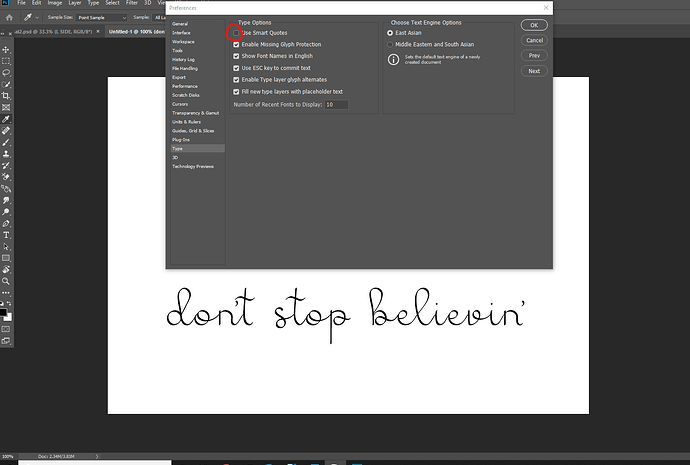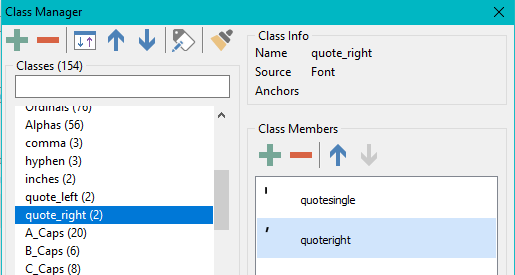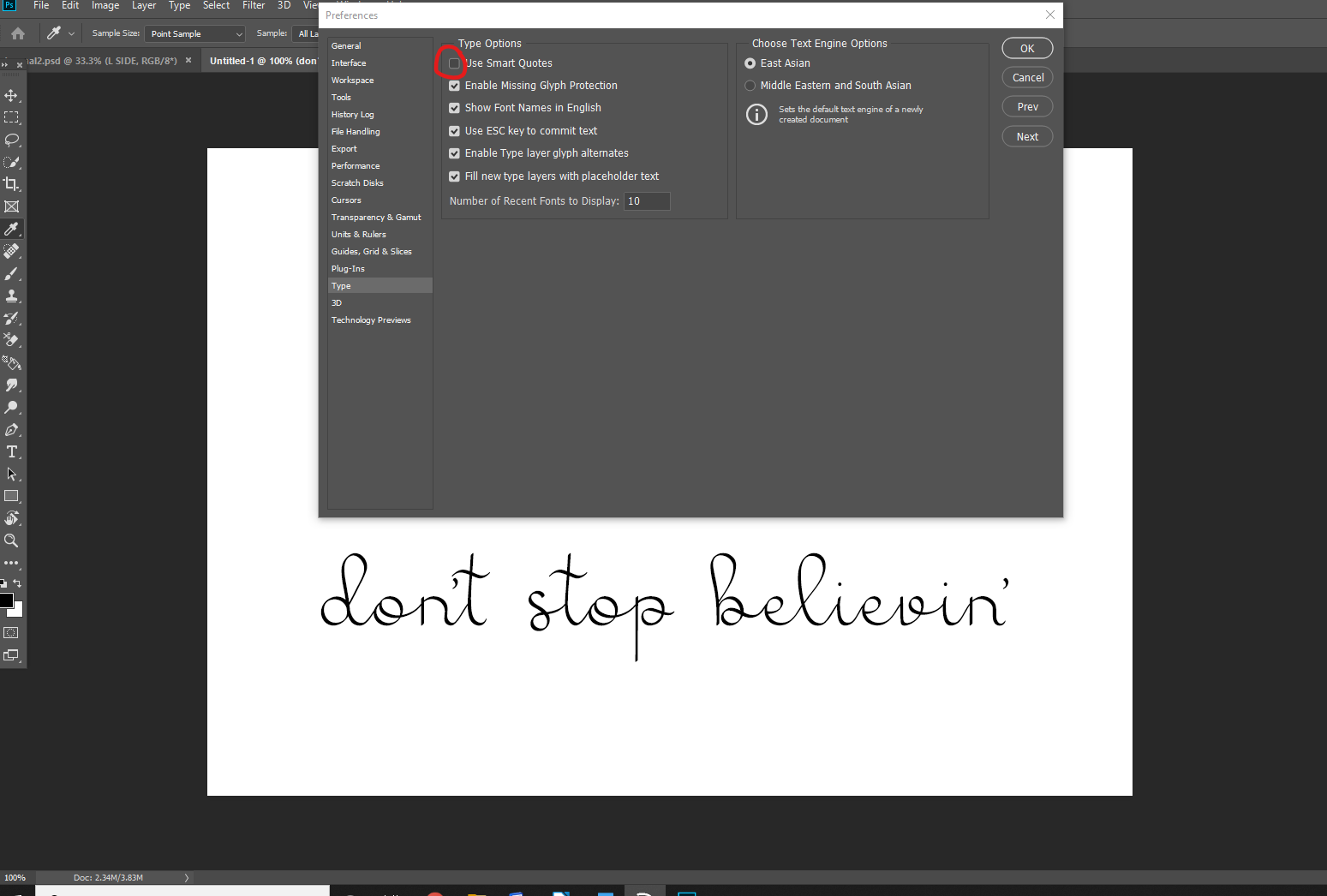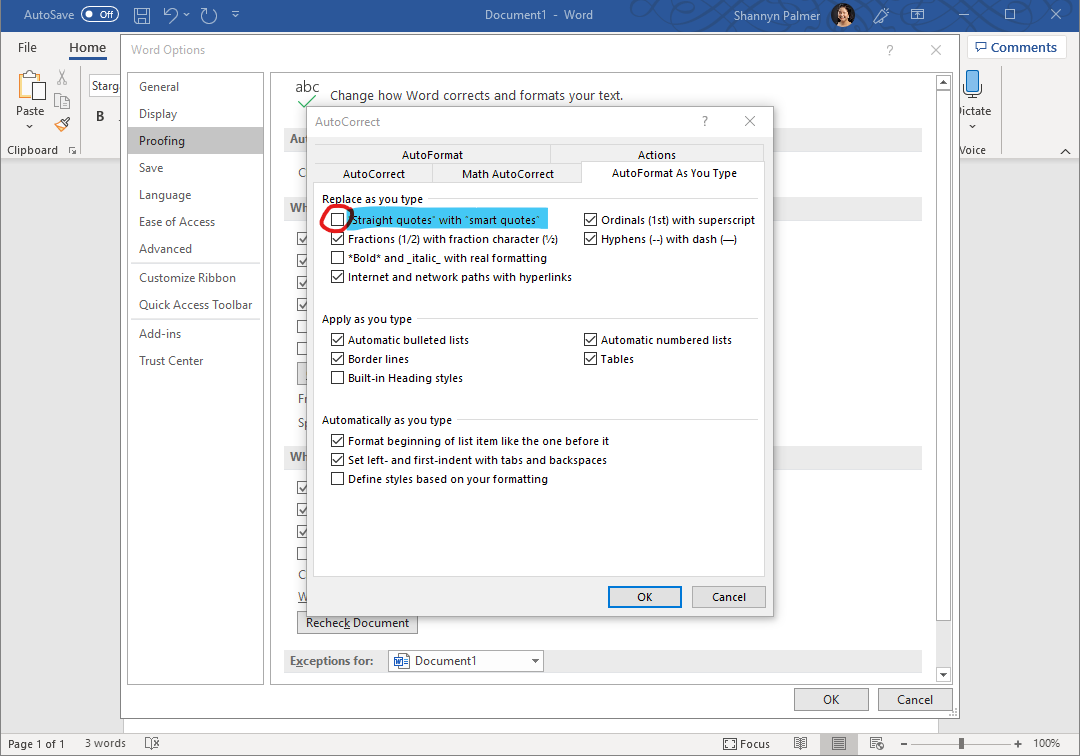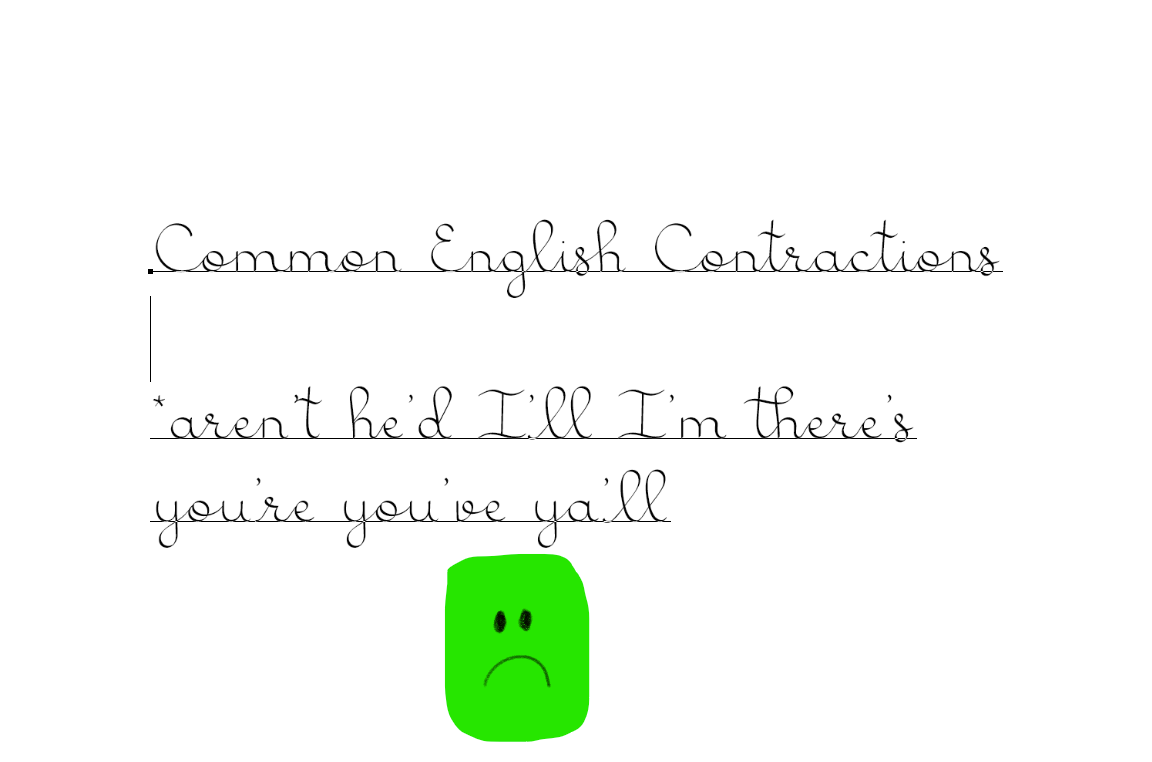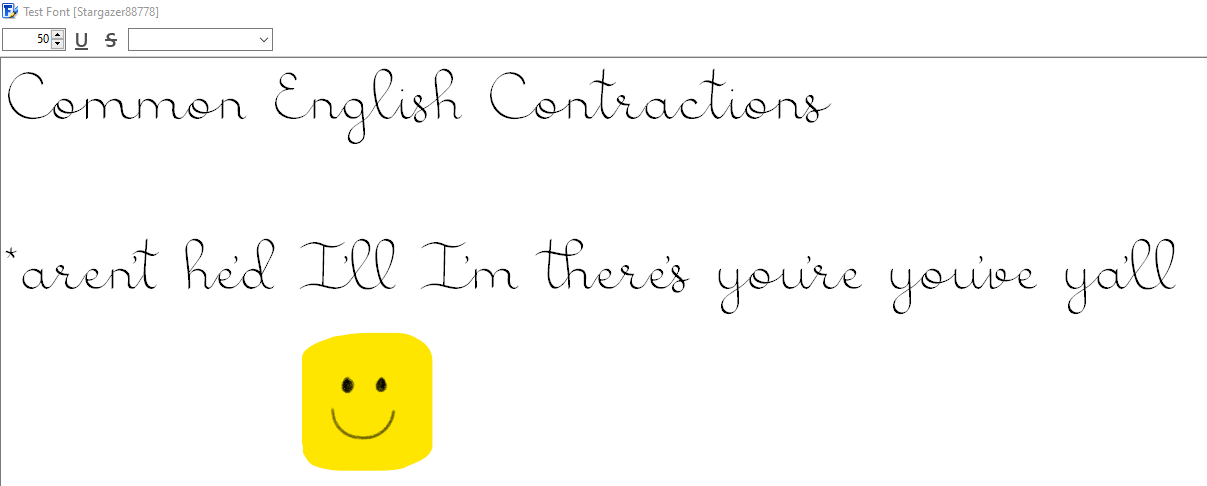
One of the things I wanted my script font to have is clean looking contractions (you’re, we’ll, must’ve, etc.). From the script fonts I’ve seen, it’s not really a common practice, but I wanted to try anyway. I got it to work in Font Creator, and it shows up perfectly in the preview windows on my PC and also as a webfont, but it doesn’t work in Adobe Photoshop and Word. Is this an issue with Adobe and Microsoft, or is something not quite right with my coding? I’d really love for this feature to work out! I think it would be a be happy to send my font to a moderator if it helps to see what I’ve got coded.
Probably your font uses an OpenType feature that is not supported by Word and PhotoShop, or that is not enabled by default. The WOFF test page will tell you which features need to be enabled for the apostrophe to work as designed.
Thanks for replying! I searched for solutions a bit longer, and I found out how to solve the issue. I just had to manually turn off the “smart quotes” and “smart quotations” in Word and PhotoShop. Now, my font works like a charm, and I’m very excited!
If you include right single quote in a class together with apostrophe, and use that class in your glyph substitutions instead of the apostrophe, your font might be made to work with or without smart quotes enabled.